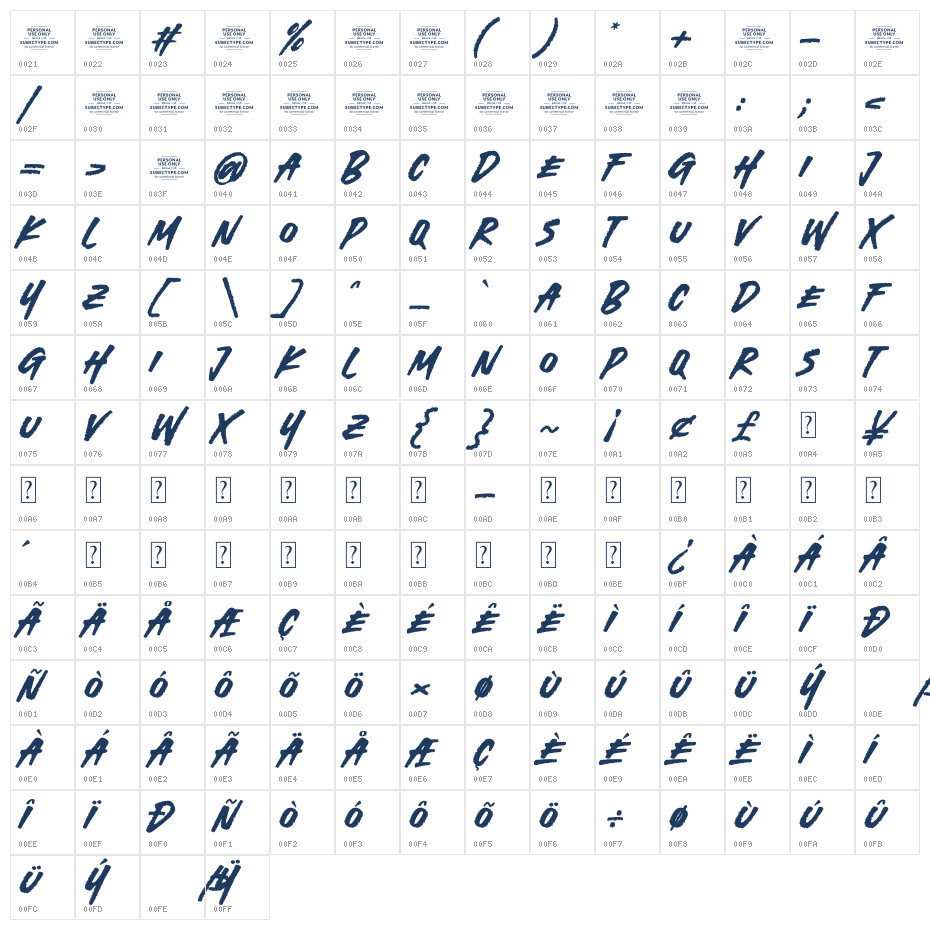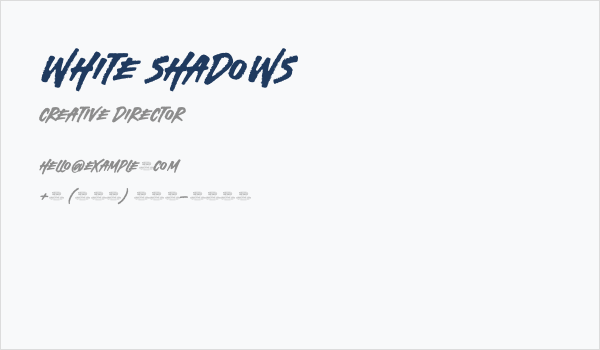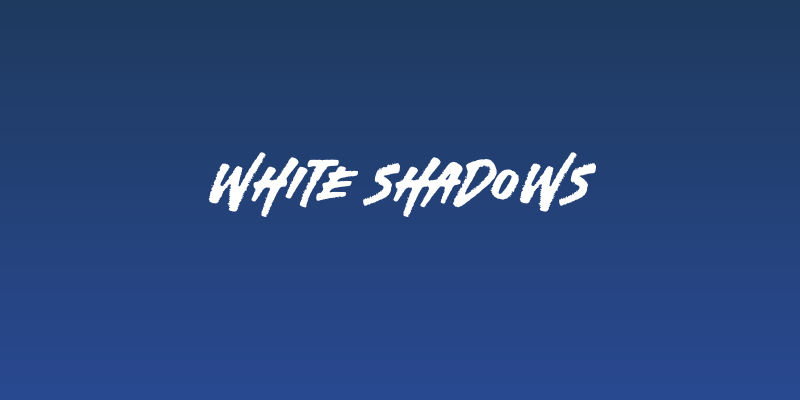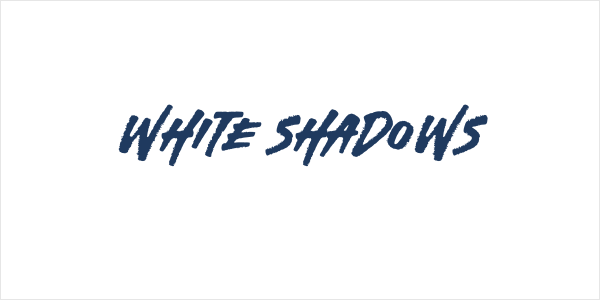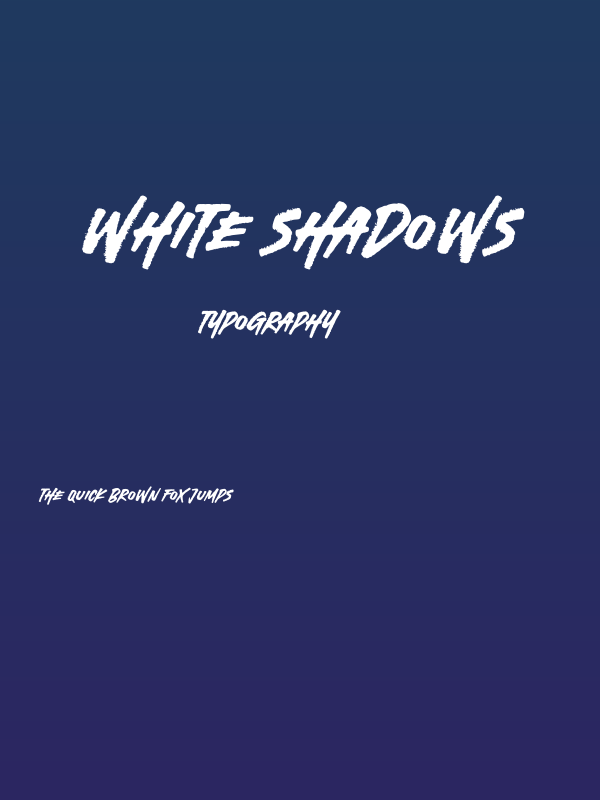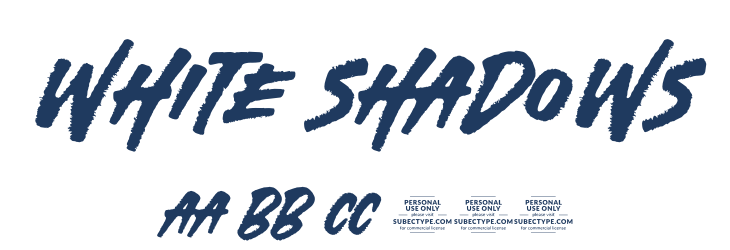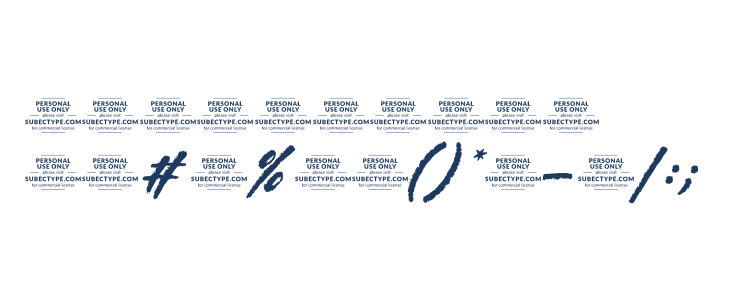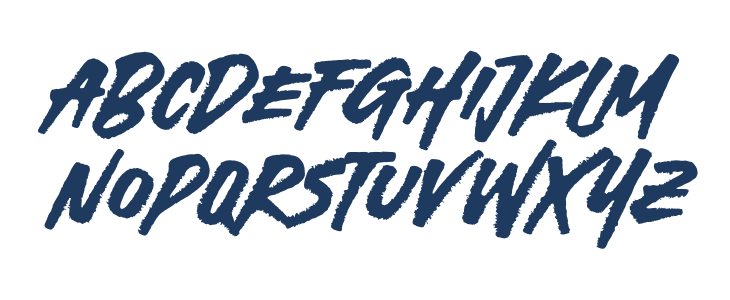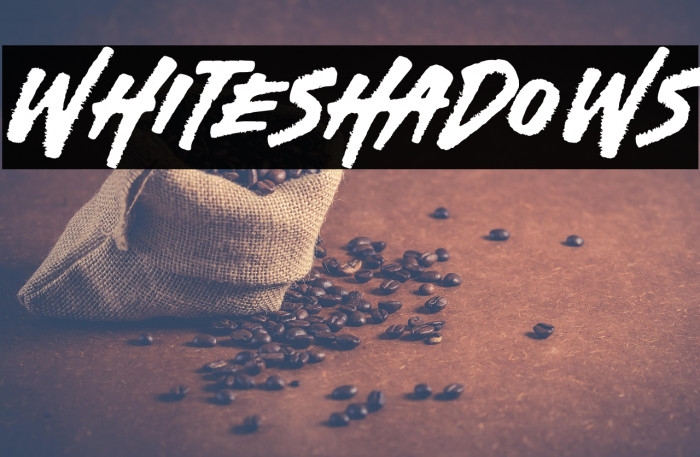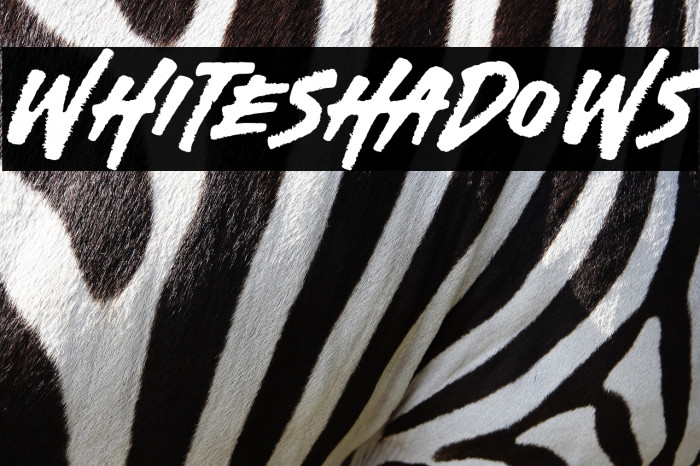
White Shadows Font
White Shadows Description
Bold, brush-stroke style script font with a casual, handwritten appearance.
| Overall Style | Casual, Energetic, Handcrafted |
| Use Case | Headlines, Logos, Posters, Branding |